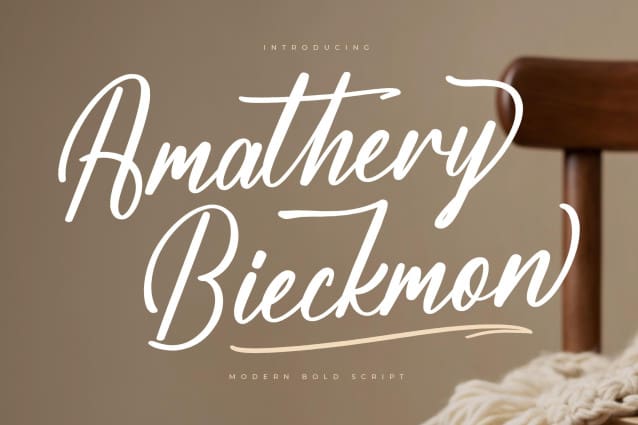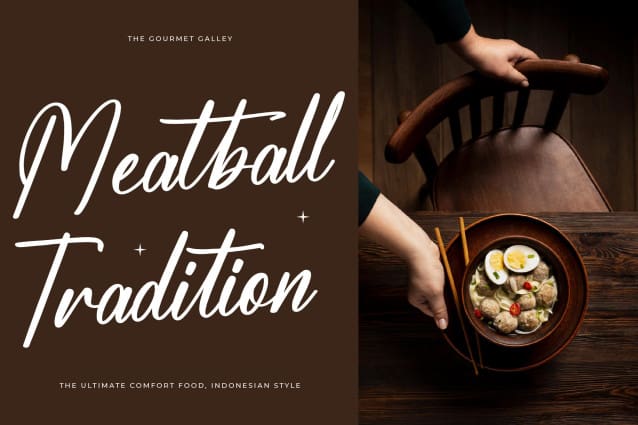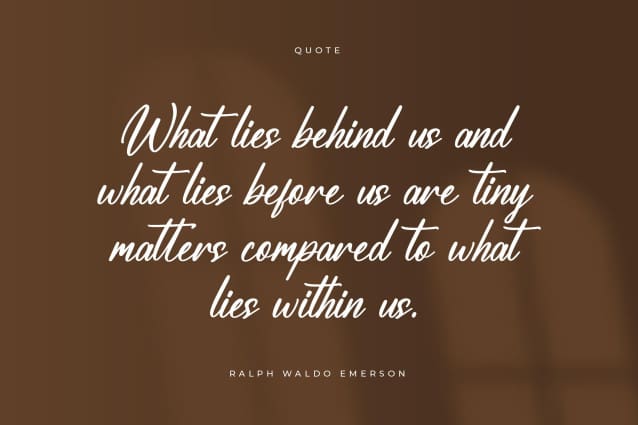
Amathery Bieckmon Font
Amathery Bieckmon Font – Modern Bold Script , from Letterena, is a Luxury Script font, suitable for any projects such as: logos, branding projects, homeware designs, product packaging, mugs, quotes, posters, shopping bags, t-shirts, book covers, name card, invitation cards, greeting cards, label, photography, watermark, special events, and all your other luxury and beautiful projects that need a Luxury Script taste.